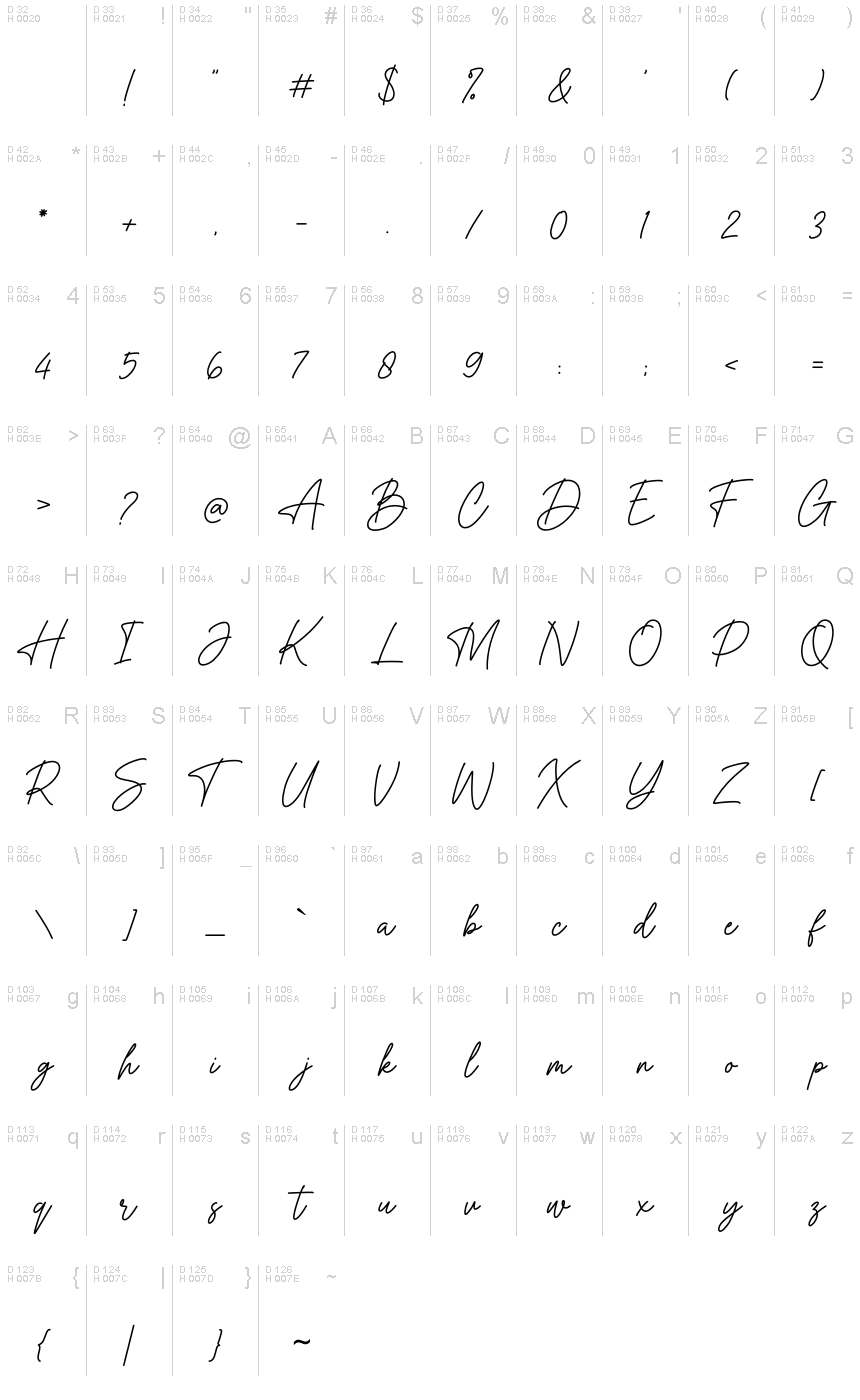
The Chairman
The Chairman, designed by Heinzel Std, exudes a personal touch with its handwritten signature style. Elegant and light, this font dances across the page with a grace that suggests the intimate flair of a personal note. Its gentle strokes convey a sense of individuality and sophistication that could elevate the character of personal branding, invitations, or high-end packaging designs.
Wherever a bespoke feel is desired, The Chairman's distinctively fluid and artistic curves offer an aesthetic quality that can enhance the luxuriousness and exclusivity of products or services. It's as if every word penned in this font carries the authority and finesse expected from its namesake.